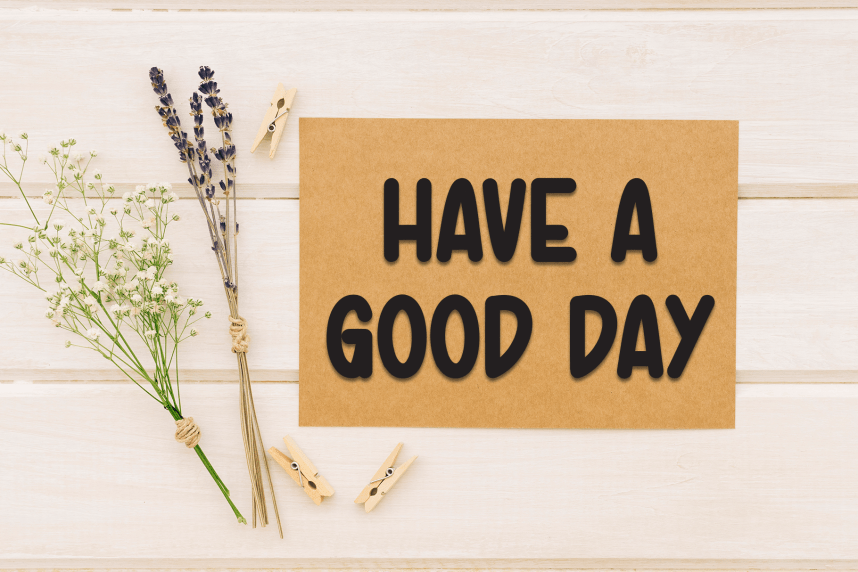
Baby Chubby – Modern Style Font
Baby Chubby – Modern Style Font is a sweet and friendly handwritten display font. Cute and fun, this font is ideal for writing wedding invitations, cards, or any other design that might need a playful touch!